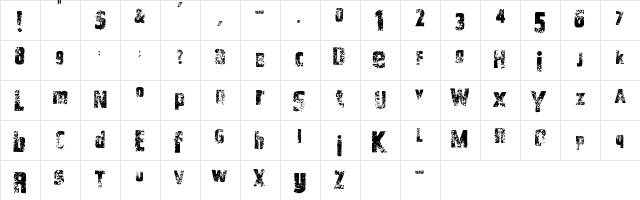
Design Context for 2Peas White Sale Typeface
2Peas White Sale is a composed and adaptable typeface that performs quietly and consistently across a wide range of design contexts.